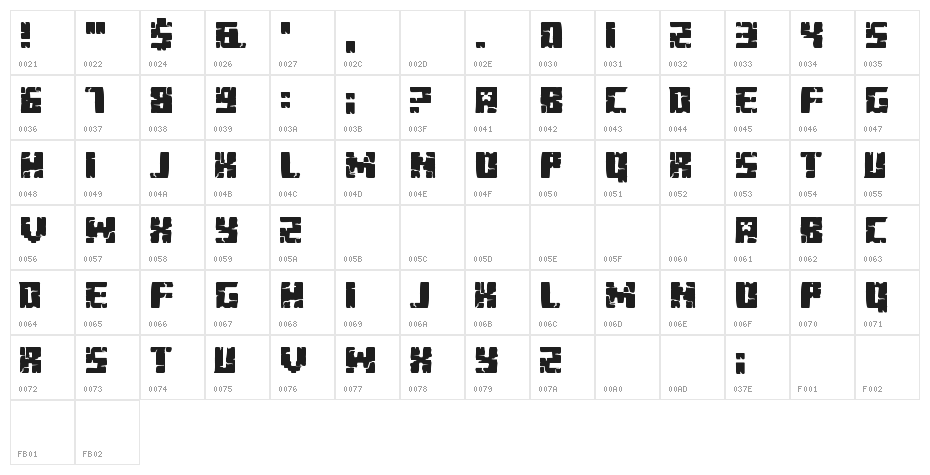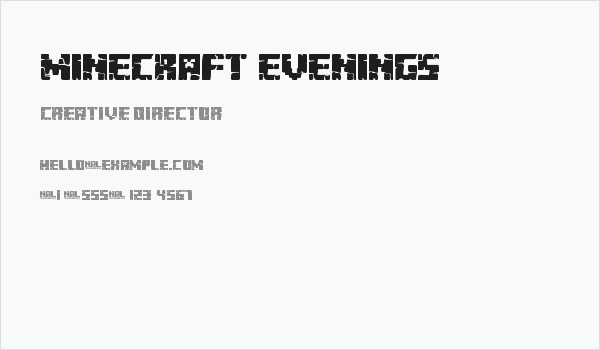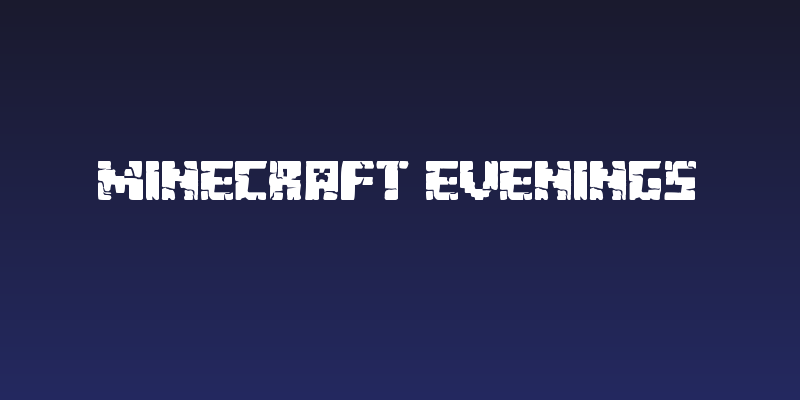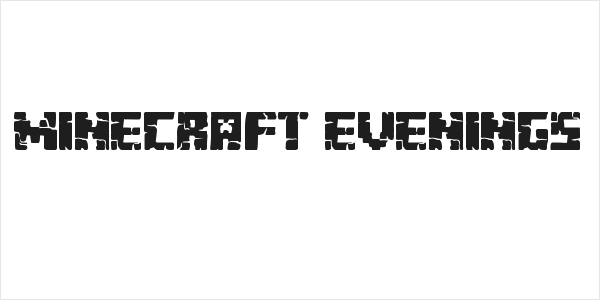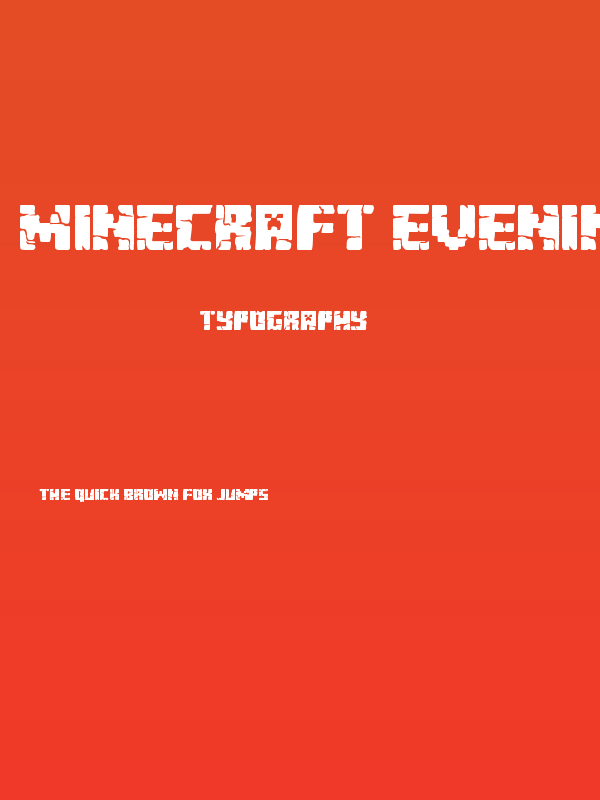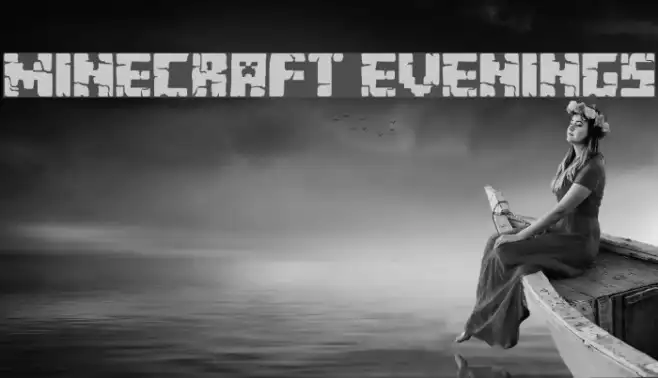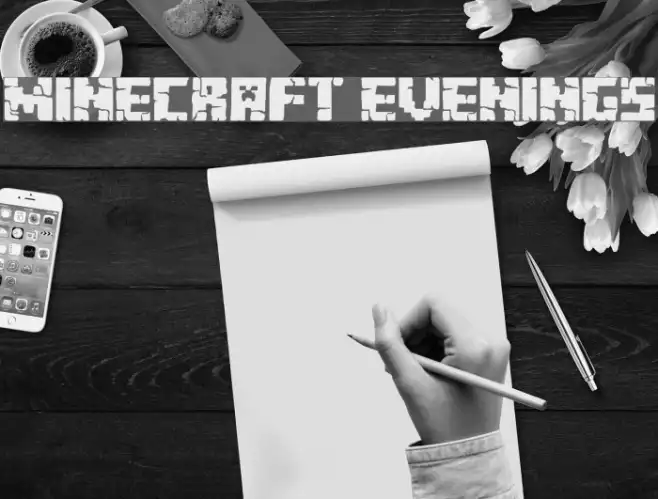
Minecraft Evenings Font
Minecraft Evenings Description
This font features a bold, blocky design with a pixelated, digital aesthetic reminiscent of classic video game graphics. The characters are constructed with a rugged, uneven texture that gives them a unique, playful appearance. The uppercase and lowercase letters maintain a consistent style, with sharp angles and a chunky form that ensures high visibility. Numbers and special characters follow the same design principles, making the font versatile for various creative applications. Its distinct style is both eye-catching and nostalgic, perfect for projects that require a retro or gaming-inspired look.
| Overall Style | Retro, Playful |
| Proposed Projects | Ideal for video game titles, retro-themed posters, digital art, and creative branding projects. |